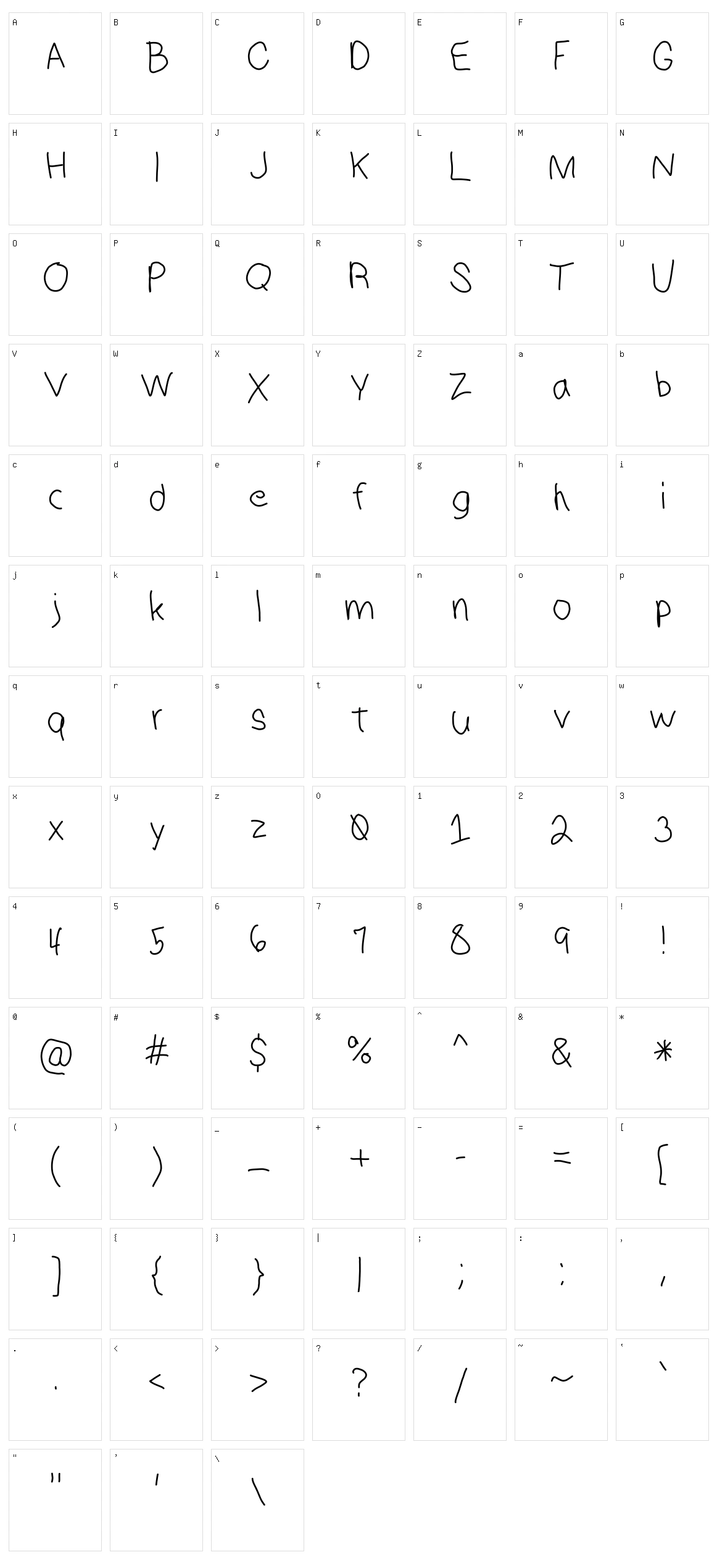
The free font HM Keokuk is carefully designed by Hamelton Media, showcasing a thoughtful balance of creativity and usability and falls under the Script font style. When you download the ZIP file, it contains only 25.66 KB of font files, making it lightweight and quick to download. Please review the license details below to understand permitted usage and distribution rights. If license information is not available, we recommend using this font for personal projects only or contacting the author directly for commercial usage permissions.